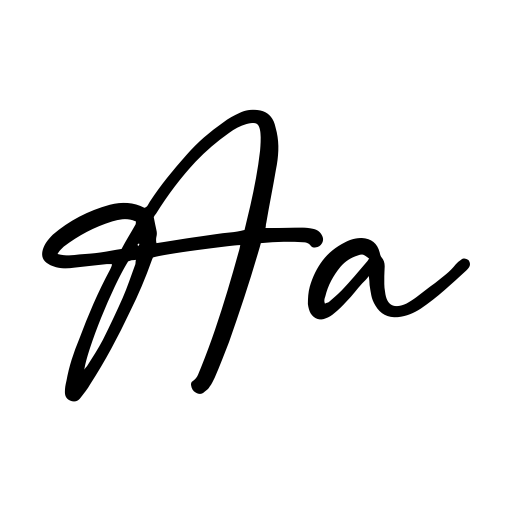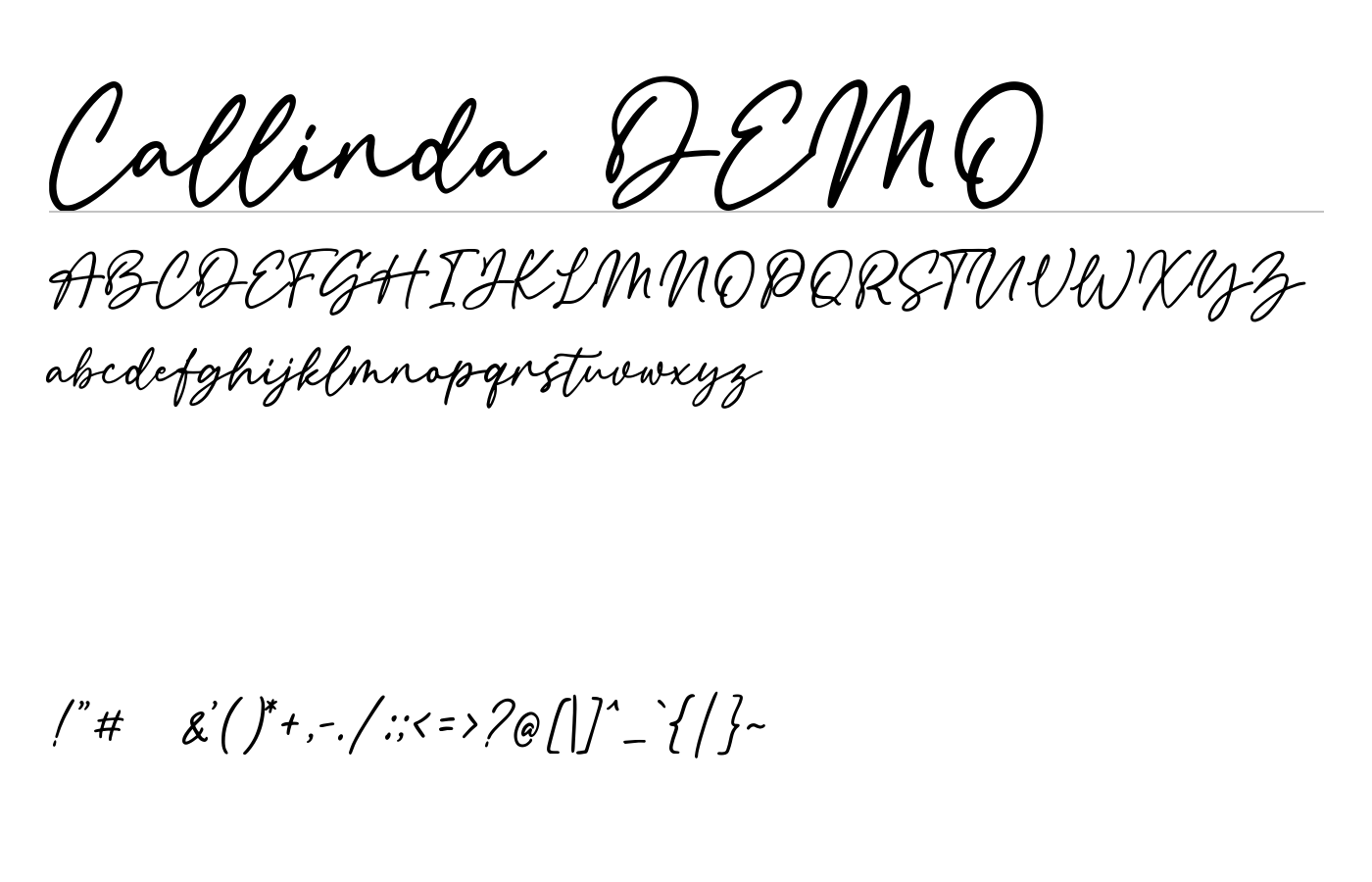
Callinda DEMO is a lively script font that mimics natural handwriting with its fluid and elegant strokes. It features a medium weight with slender, smooth lines and a slightly casual charm, making it ideal for adding a personal and creative touch to designs. This font works well for invitations, branding, and stylish headlines where a handwritten, approachable look is desired.
Callinda DEMO Font
About Callinda DEMO Font
| Font family | Callinda DEMO Font |